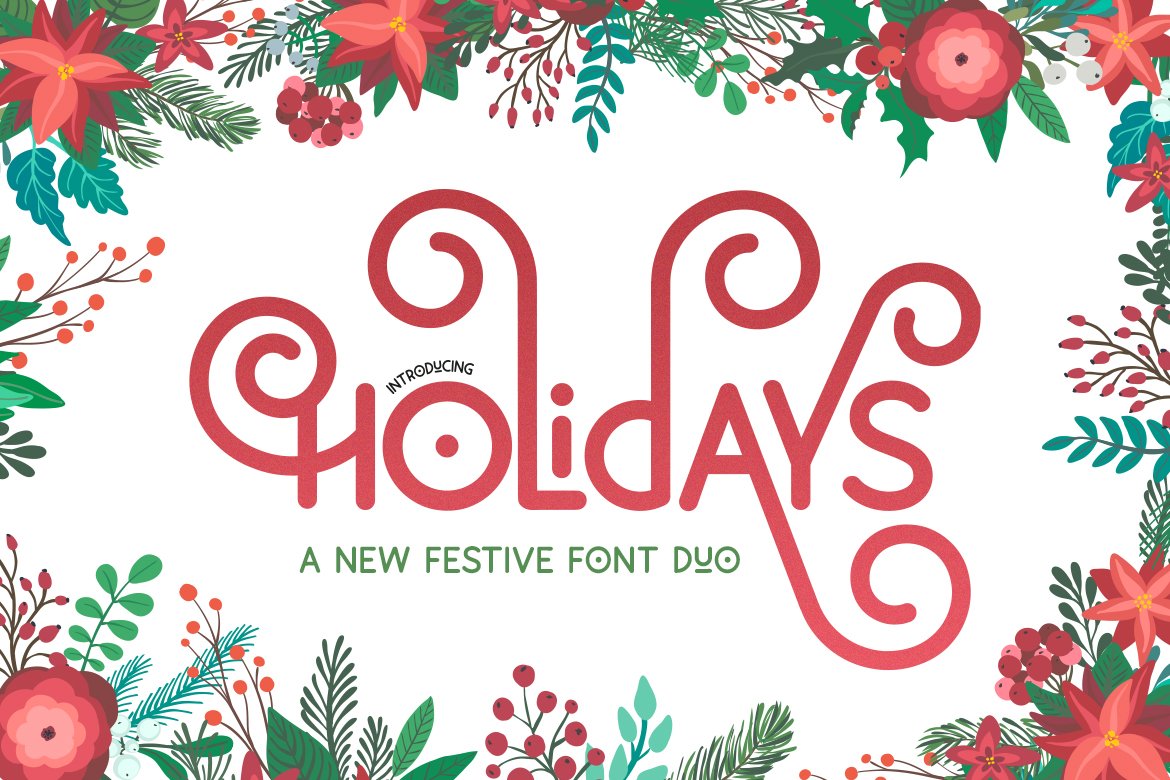
Free Holidays Font Duo
Our new friends over at thisweeksdesigns.com are launching their new site in March 2021 and wanted to give you one of their festive new premium Font called Holidays Font Duo! It’s a super happy font with lots of character to it.
You could create some really fun homemade cards, tags, signs, and so much more with it!
The best part of this font is that it comes with TWO fonts!
One with “curls” and the other is an all caps font that could be used as a more versatile font.
Other used for it include:
- Flyers
- Web Banners
- E-books
- Journal covers
- Calendars
- Planners
- Logos
- Labels
- Scrapbooking layouts
- and more!
Festive Free Holidays Font Duo